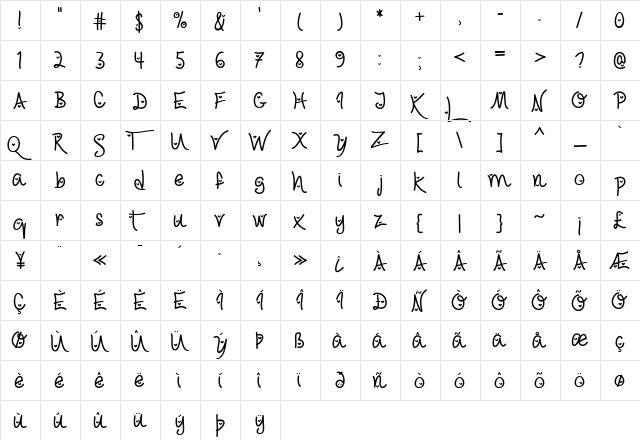
Love & Trust (Hearted) Regular
Design Context for Love & Trust (Hearted) Typeface
Love & Trust (Hearted) is a composed and adaptable typeface that performs quietly and consistently across a wide range of design contexts.